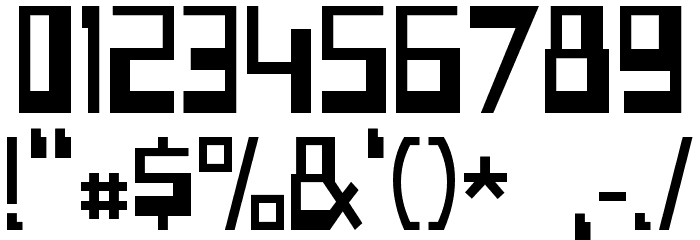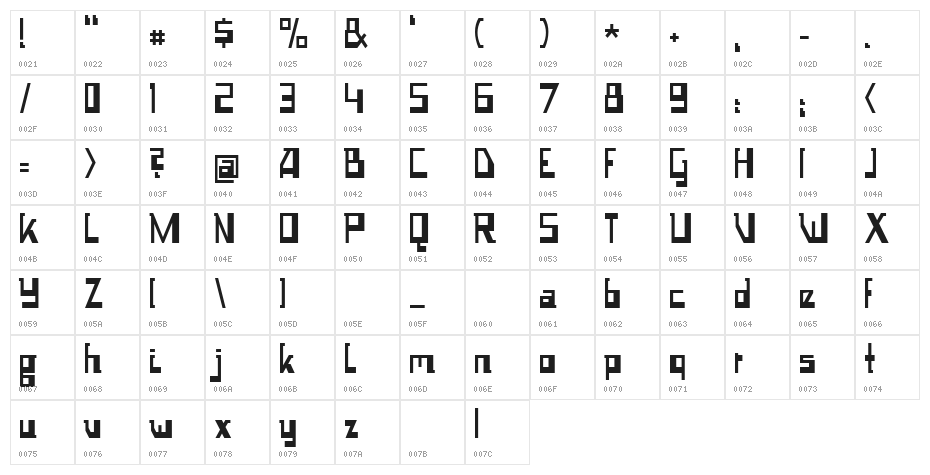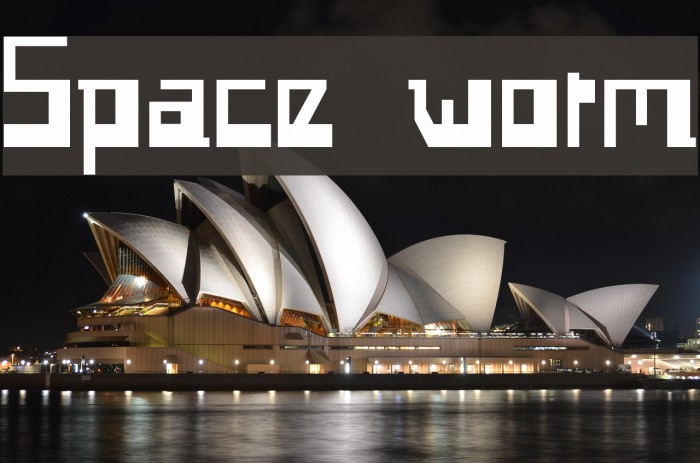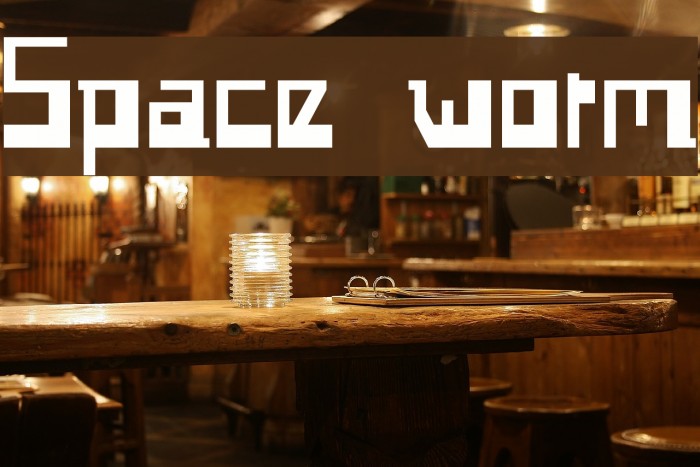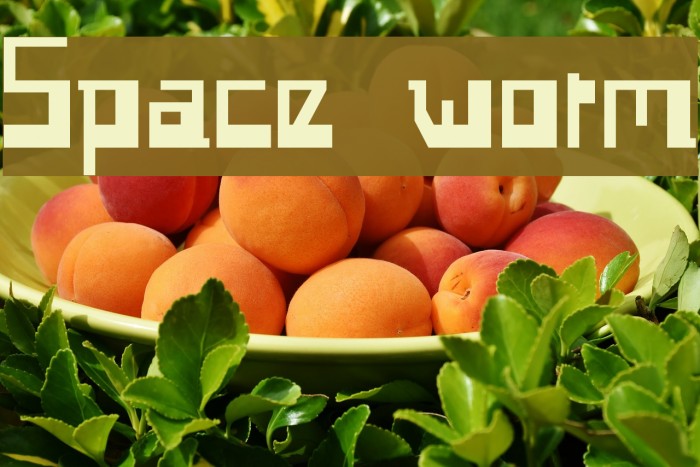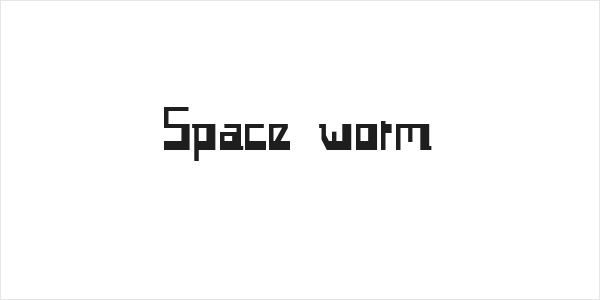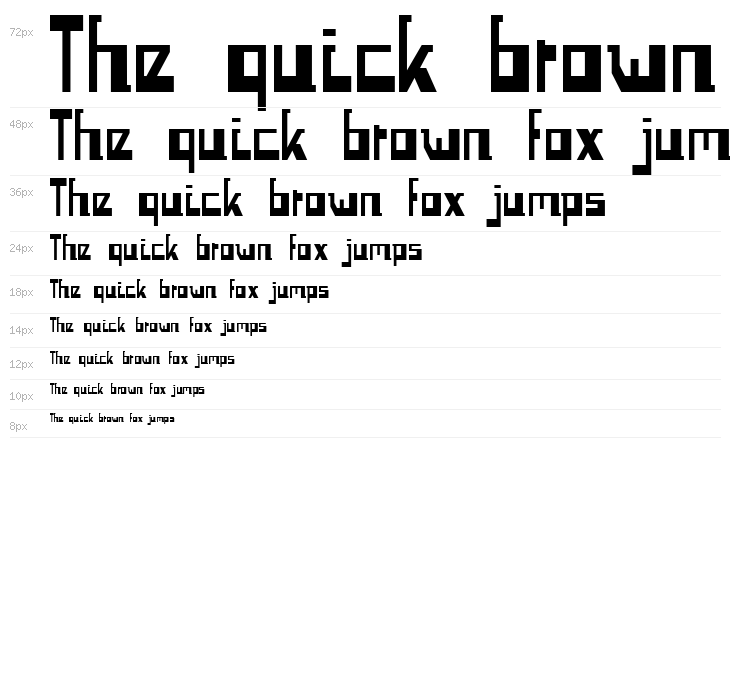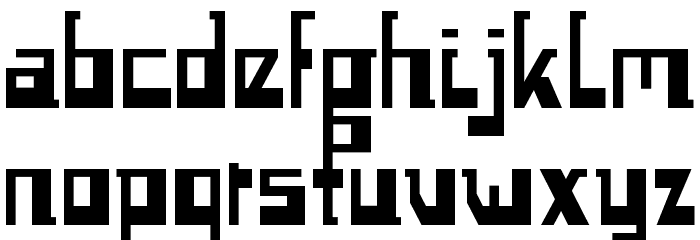
Space worm Font
Space worm Description
This font features a bold, geometric design with a futuristic flair. The characters are constructed with sharp angles and straight lines, giving it a digital and modern appearance. The uppercase letters are particularly striking, with a blocky and robust structure that commands attention. The lowercase letters maintain the same angular style, ensuring consistency throughout the typeface. Numbers and special characters are designed to match the overall aesthetic, making this font versatile for various applications. Its unique style is reminiscent of digital displays or sci-fi themes, making it ideal for projects that require a modern and edgy look.
| Use Case | Headlines, Logos, Digital displays |
| Proposed Projects | Ideal for sci-fi themed designs, digital displays, video game graphics, and modern branding projects. |